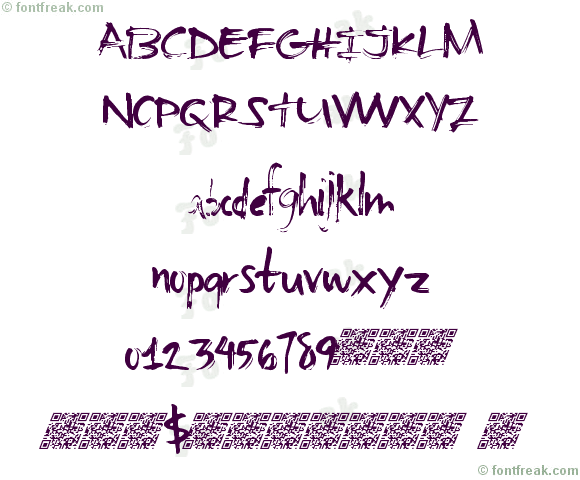
BasicSharpie
About BasicSharpie
The BasicSharpie font, created by XEROGRAPHER FONTS in 2014, exemplifies a unique handwritten style that brings a personal touch to any design project. This display font features an expressive and slightly irregular stroke, mimicking the look of ink from a felt-tip marker. The uneven line weight adds character, while the playful, spontaneous letterforms contribute to its casual yet artistic vibe. The spacing between characters is well-balanced, ensuring readability while maintaining the organic feel typical of handwritten fonts.
Best used in creative contexts, the BasicSharpie font shines in various applications. It is particularly effective for crafting eye-catching wedding invitations, where its informal elegance can convey warmth and personal connection. Additionally, it fits perfectly on restaurant menus, offering a friendly and inviting atmosphere. Graphic designers might find it suitable for branding projects aimed at younger audiences, especially in the arts or music sectors. Furthermore, the font can enhance social media graphics, providing a relatable and approachable aesthetic that resonates with followers.
The target audience for BasicSharpie includes graphic designers seeking to infuse their projects with a handcrafted look, small business owners aiming to establish a relatable brand identity, and content creators looking for a font that connects with their audience on a personal level. The versatility of this font makes it a valuable addition to any designer's toolkit.
What sets the BasicSharpie font apart is its ability to blend a casual, handwritten aesthetic with professional quality. This font not only captures the essence of personal expression but also offers the versatility needed for various design applications. For those interested in this unique style, a BasicSharpie font free download is a fantastic opportunity to enhance your creative projects.